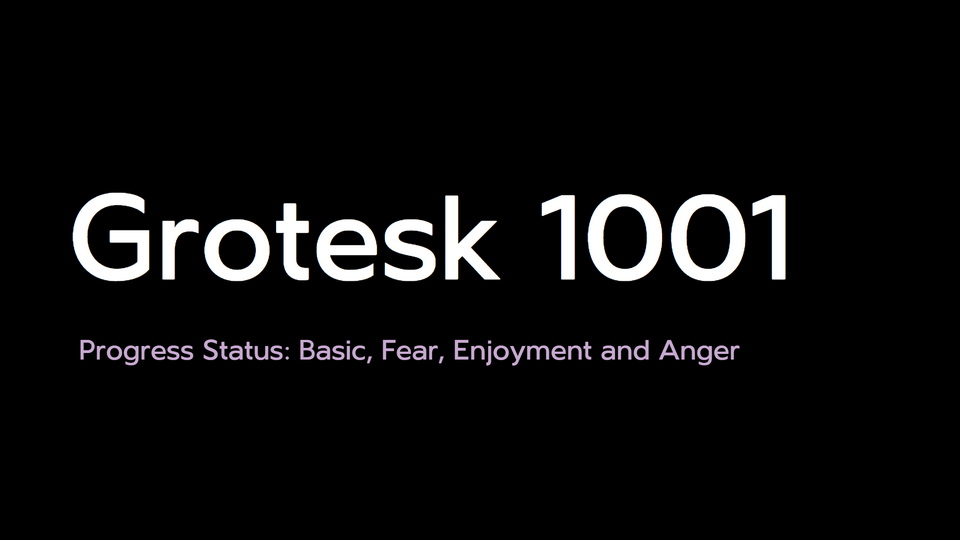
Download Grotesk 1001 font, a speculative experiment about emotions in type and the emerging technology variable fonts. The starting point of Grotesk 1001 font was the question whether the performativity of a text could be enhanced by adjusting the feeling of the font to the content of the text.
Designer: Katharina Mumme